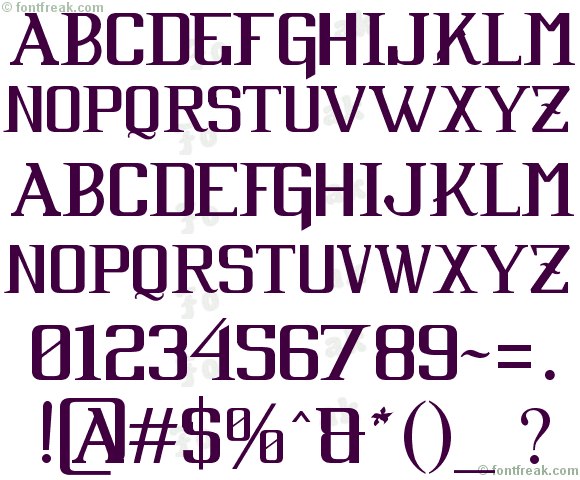
Cabaret
The Cabaret font, designed by Juan Casco, is a distinctive display typeface that embodies a playful yet sophisticated aesthetic. This font falls under the decorative category, characterized by its bold strokes and unique letterforms. The stroke weight is consistent, offering a balanced appearance, while the contrast in certain characters draws attention to key elements. The spacing is well-structured, ensuring readability even in larger formats, making it a versatile choice for various design projects.
Cabaret is ideal for a range of creative applications. Its striking visual style makes it perfect for wedding invitations, where a touch of elegance is desired. Additionally, it shines in movie posters, providing a vibrant energy that captures the viewer's attention. Restaurant menus can benefit from the font's playful charm, enticing diners with an inviting look. Moreover, branding for boutique shops or artisanal products can leverage Cabaret to convey a unique identity, making it a go-to choice for small business owners aiming to stand out.
The target audience for Cabaret includes graphic designers, content creators, and small business owners who seek a font that combines personality with professionalism. Its unique character set and decorative flair cater to those looking to make a memorable impression in their designs.
What sets the Cabaret font apart is its ability to blend whimsy with sophistication. This versatility allows it to adapt to various design needs while maintaining a distinctive character. For anyone looking to elevate their projects, the Cabaret font free download offers an excellent opportunity to incorporate this stylish typeface into their creative toolkit. Whether for personal or professional use, Cabaret is sure to make a lasting impact.